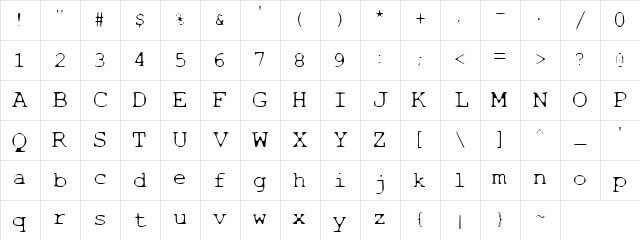
Thinbaby Regular
Design Context for Thinbaby
Thinbaby is a composed and adaptable typeface that performs quietly and consistently across a wide range of design contexts. Its slender proportions lend an understated elegance to any composition.